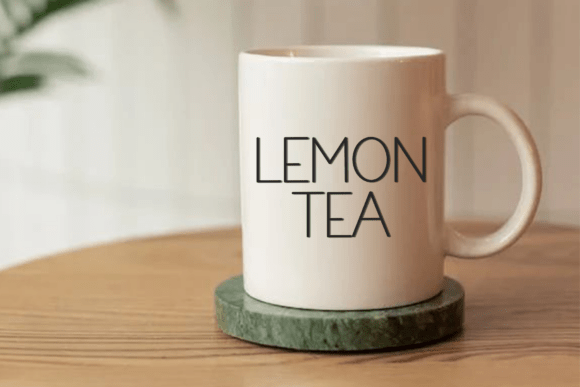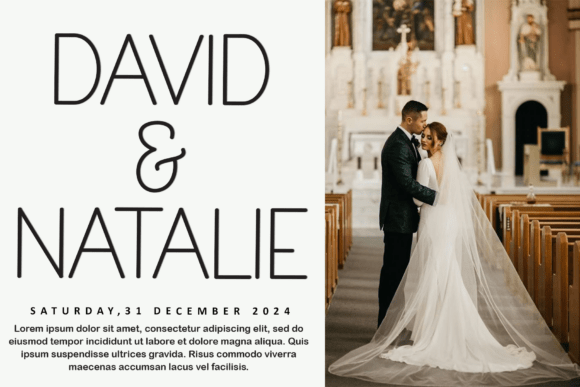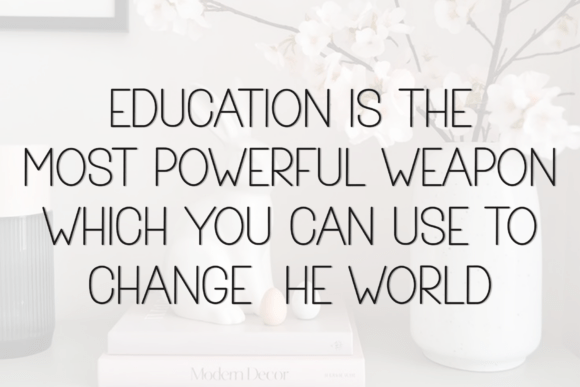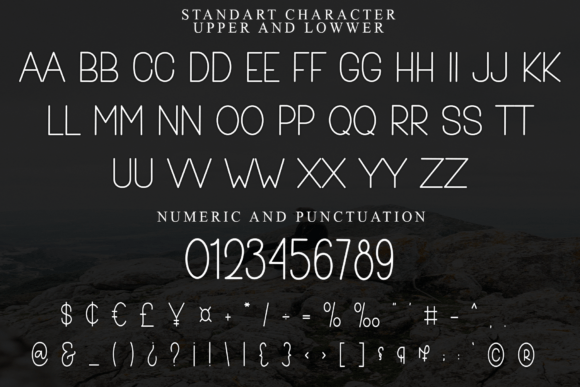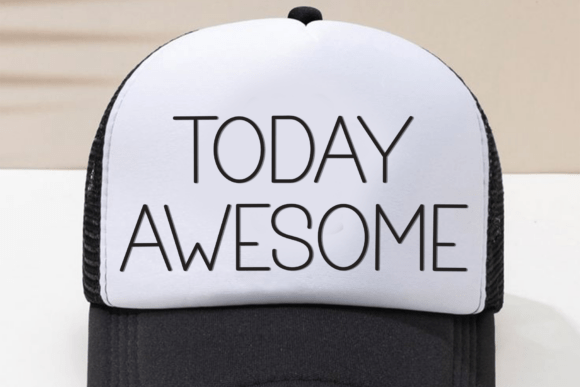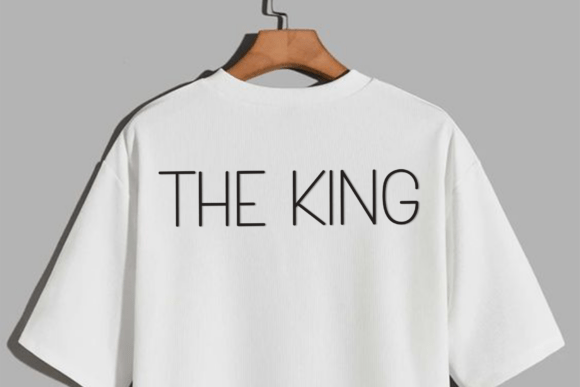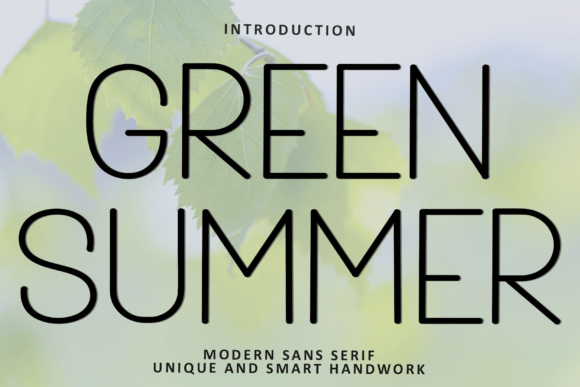
Introducing Green Summer Font: Elevate Your Designs with a Unique and Eye-Catching Style
Are you tired of using the same old fonts in your design projects? Look no further than the Green Summer Font, a beautiful and eye-catching font that is sure to take your creations to the next level. Designed with a soft, unique touch, this font is perfect for designers, crafters, and artists looking to add a special something to their work.
The Distinctive Characteristics of Green Summer Font
What sets Green Summer Font apart from other fonts is its distinctive strokes, which give it a special character that is both meaningful and versatile. With a wide range of characters to choose from, you can use this font to create unique and visually appealing designs that will capture the attention of your audience. Whether you’re working on a logo, brochure, or social media graphics, Green Summer Font is the perfect choice.
Perfect for Design Projects, Crafts, and Creative Works
Green Summer Font is not just limited to digital designs; it’s also perfect for crafts and other creative works. Imagine using this beautiful font to create handmade cards, invitations, or even DIY home decor projects. The possibilities are endless, and with Green Summer Font, you can add a personal touch to your creations that will make them stand out from the crowd.
Ideal for a Wide Range of Products
Green Summer Font is not just limited to a specific type of design project; it’s ideal for a wide range of products, including:
- Brochures and flyers
- Handmade cards and invitations
- DIY home decor projects
- Packaging and labeling
Enhance Your Designs and Appeal to a Wide Audience
Green Summer Font is designed to be visually appealing and engaging, making it perfect for designers and crafters who want to create designs that will resonate with a wide audience. With its natural and unique style, this font will add a touch of personality to your designs, making them more relatable and memorable. Whether you’re targeting a specific niche or a broad audience, Green Summer Font is the perfect choice.
In conclusion, Green Summer Font is a beautiful and eye-catching font that is perfect for designers, crafters, and artists looking to elevate their designs. With its distinctive strokes, versatility, and compatibility with various applications, this font is ideal for a wide range of projects and products. Whether you’re working on a digital design or a handmade craft, Green Summer Font is sure to add a special something to your creations. So why wait? Download Green Summer Font today and take your designs to the next level!
Get Ready to Elevate Your Designs with Green Summer Font
Are you ready to experience the unique and eye-catching style of Green Summer Font? With its soft, natural touch and versatile design, this font is sure to become a staple in your design toolkit. So don’t wait – get ready to elevate your designs and appeal to a wide audience with Green Summer Font.